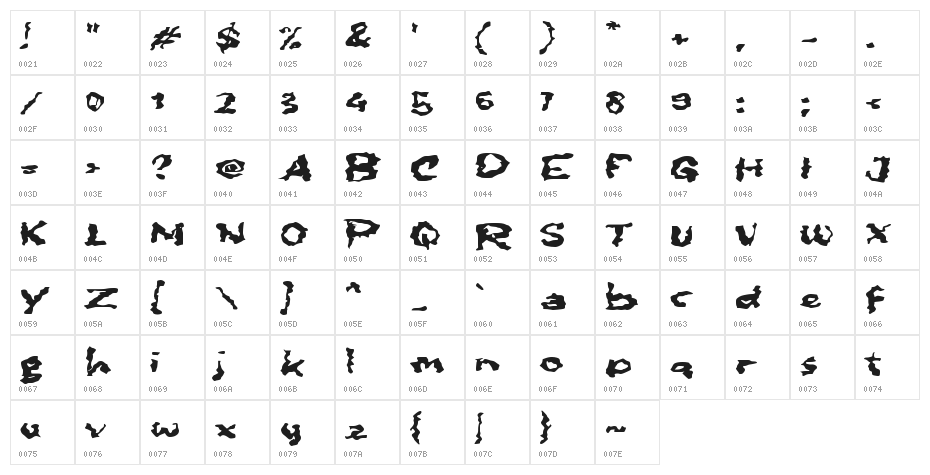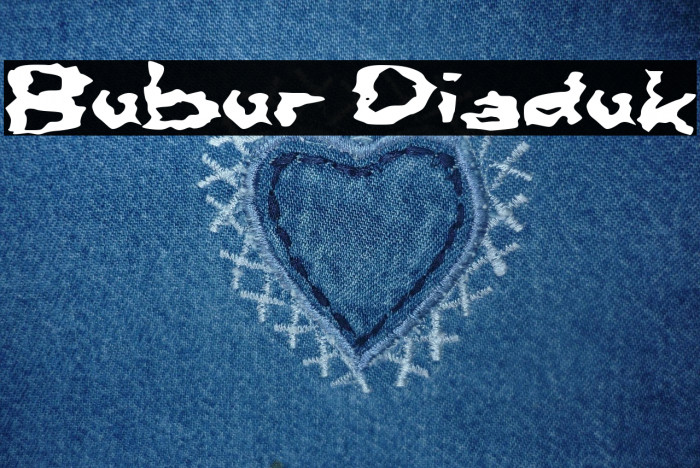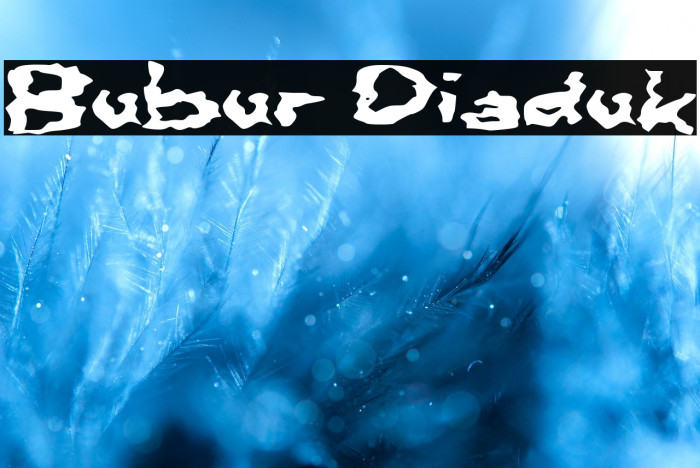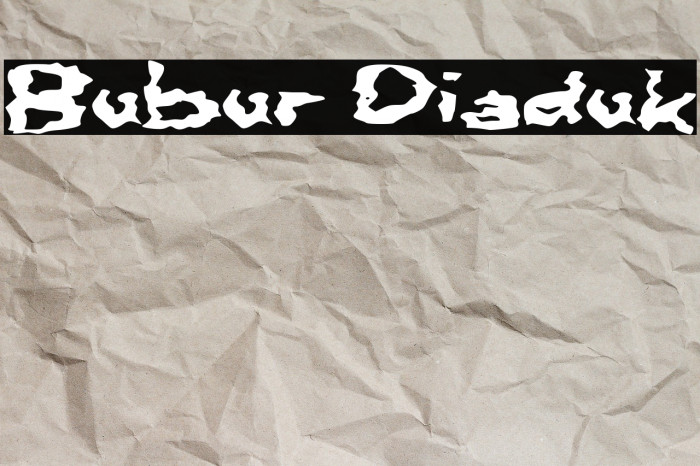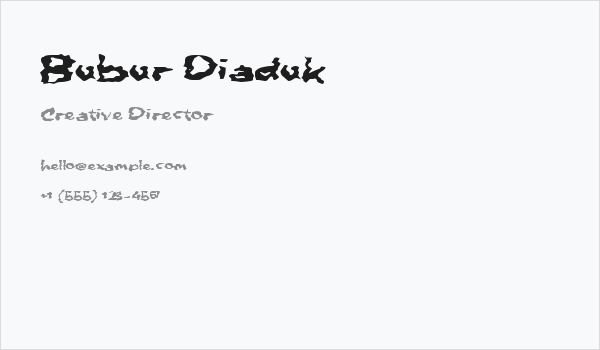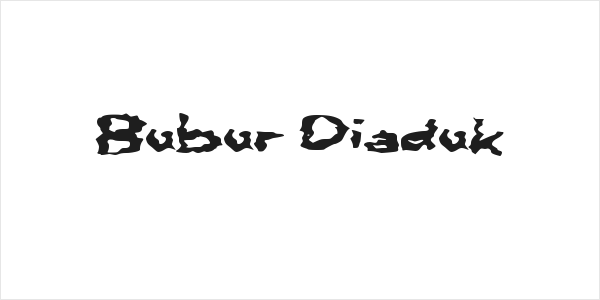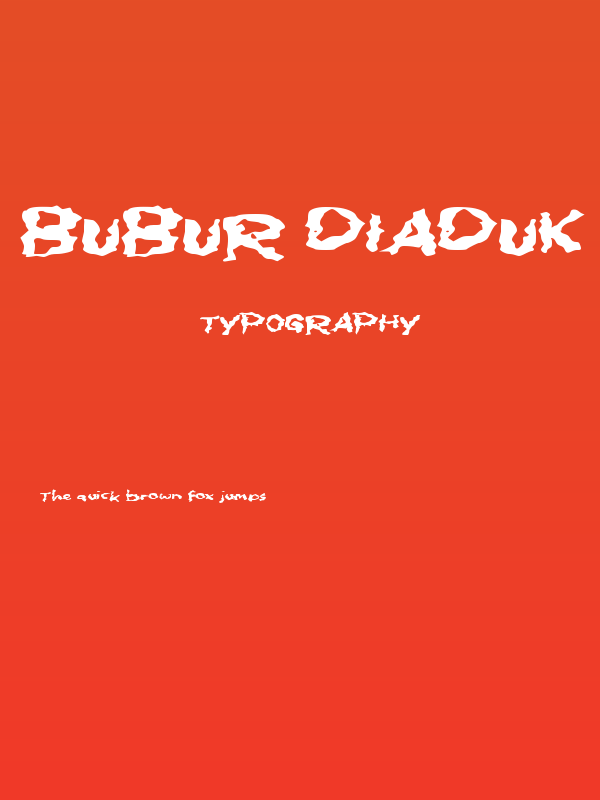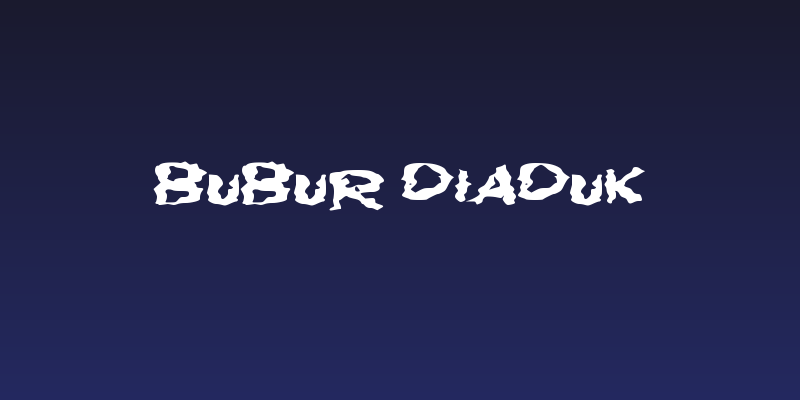
Bubur Diaduk Font
Bubur Diaduk Description
This font features a highly irregular and jagged design, reminiscent of organic or natural textures. The characters appear as if they are carved or eroded, giving them a rugged and raw aesthetic. The uppercase and lowercase letters maintain a consistent style, with each character exhibiting unique, uneven edges that contribute to a dynamic visual impact. The numbers and special characters follow the same design principles, ensuring uniformity across the font. This font's distinctive appearance makes it ideal for projects that require a bold and unconventional look.
| Proposed Projects | Ideal for artistic projects, album covers, posters, or any design requiring a bold, unconventional look. |